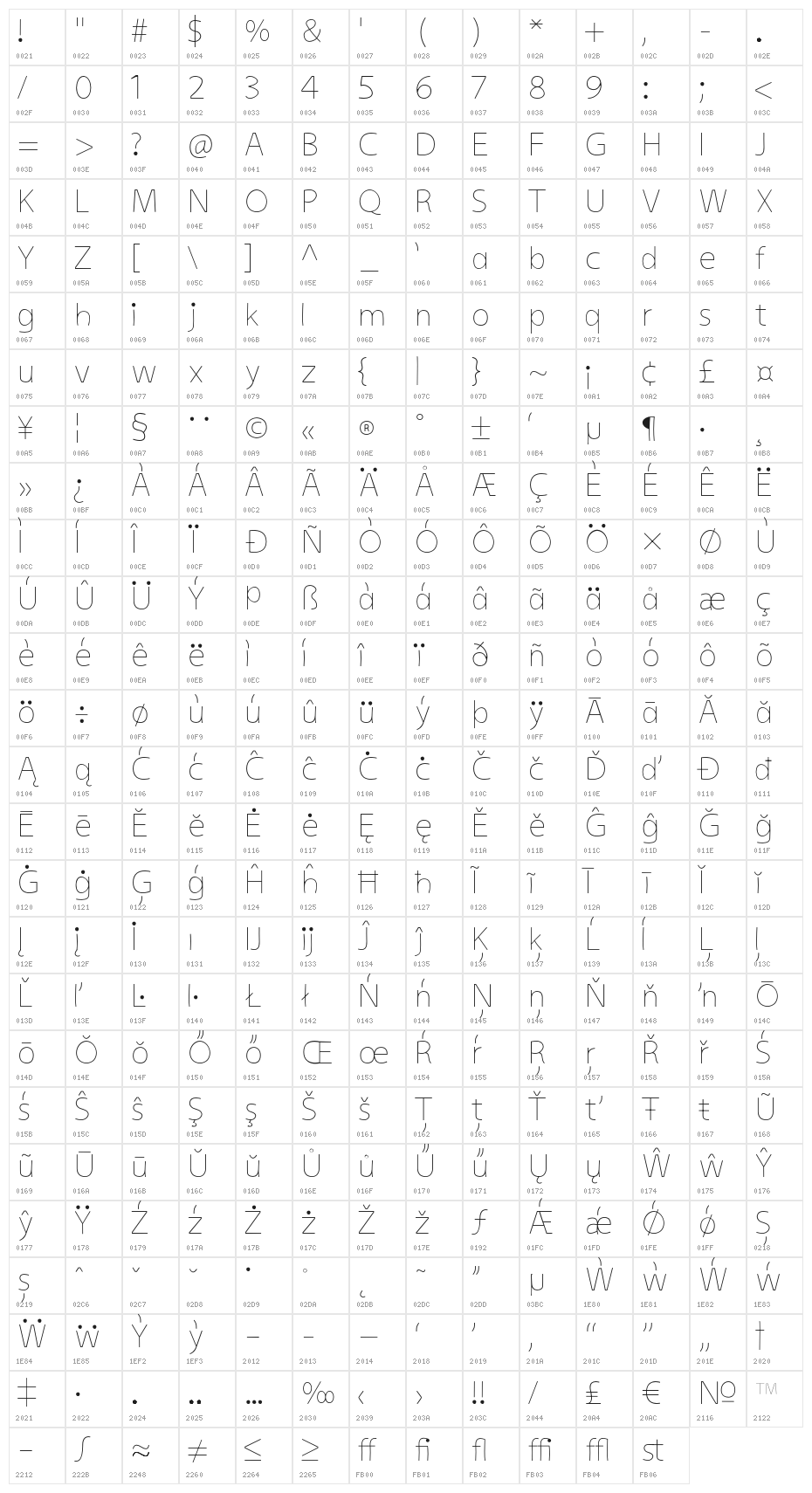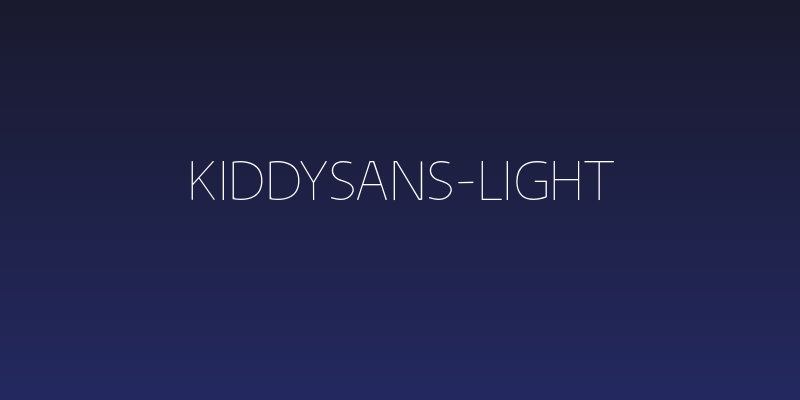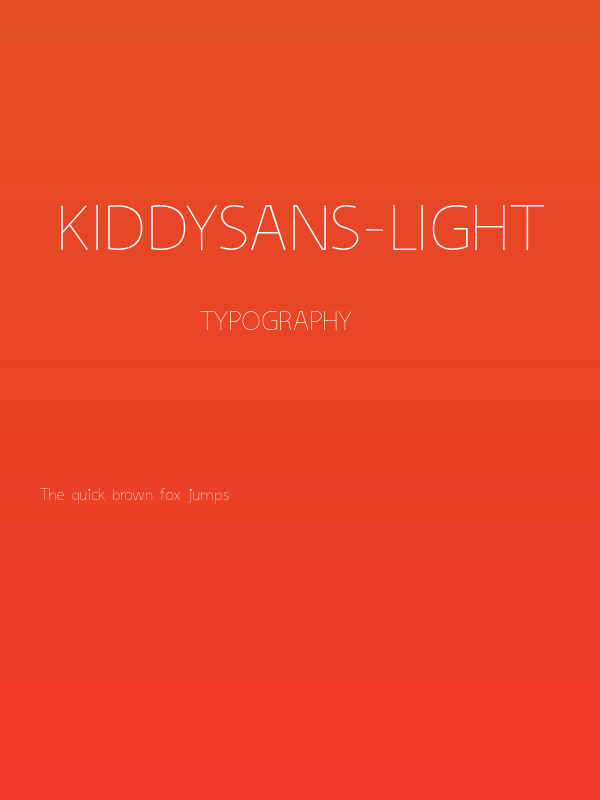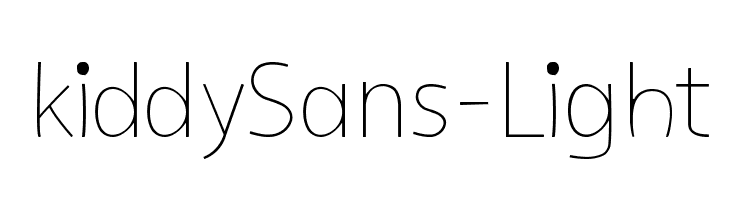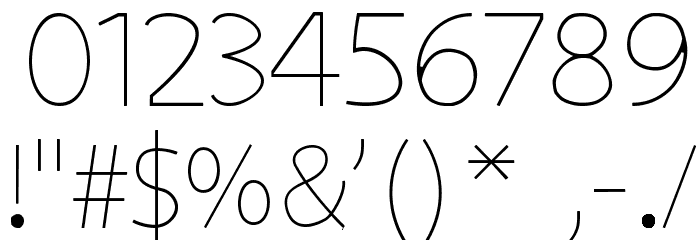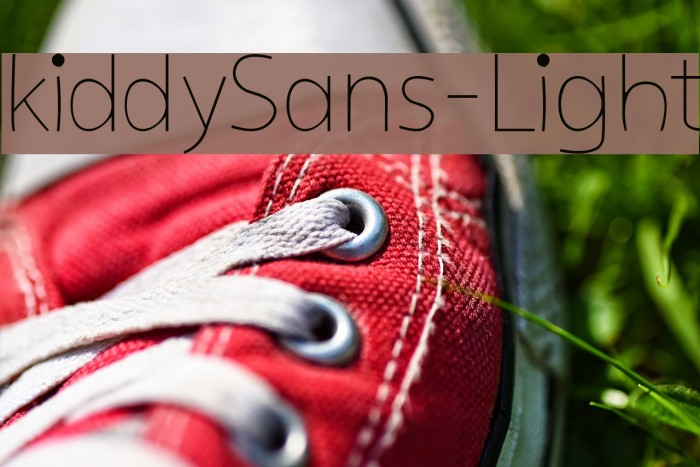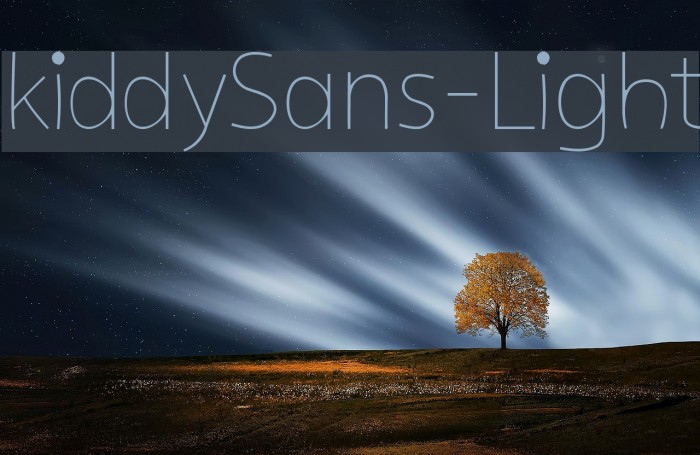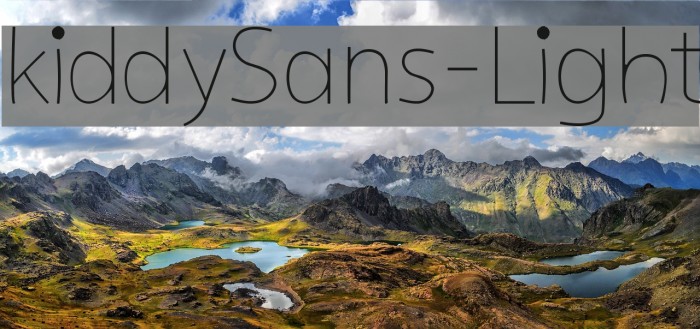
kiddySans-Light Font
kiddySans-Light Description
This font features a clean and minimalist design with a light weight, making it ideal for modern and contemporary projects. The characters are evenly spaced with a slight roundness that adds a friendly and approachable feel. The uppercase and lowercase letters maintain a consistent height and width, providing a harmonious look. The numerals are clear and legible, while the special characters are simple yet effective, ensuring versatility across different applications. Its simplicity and elegance make it suitable for a wide range of uses, from digital interfaces to printed materials.